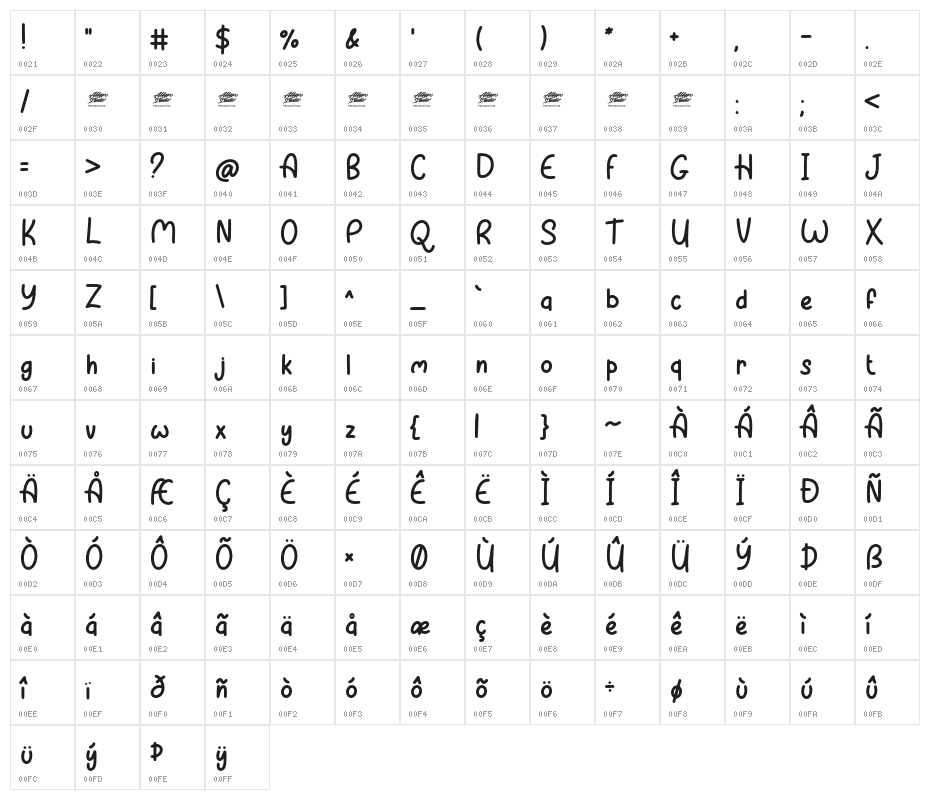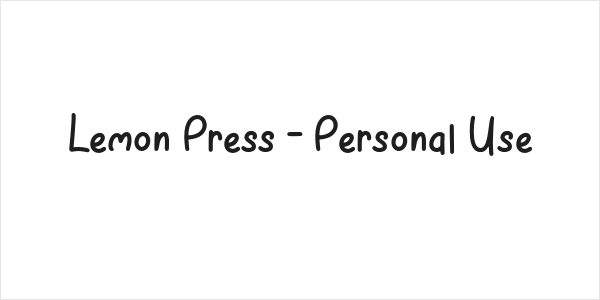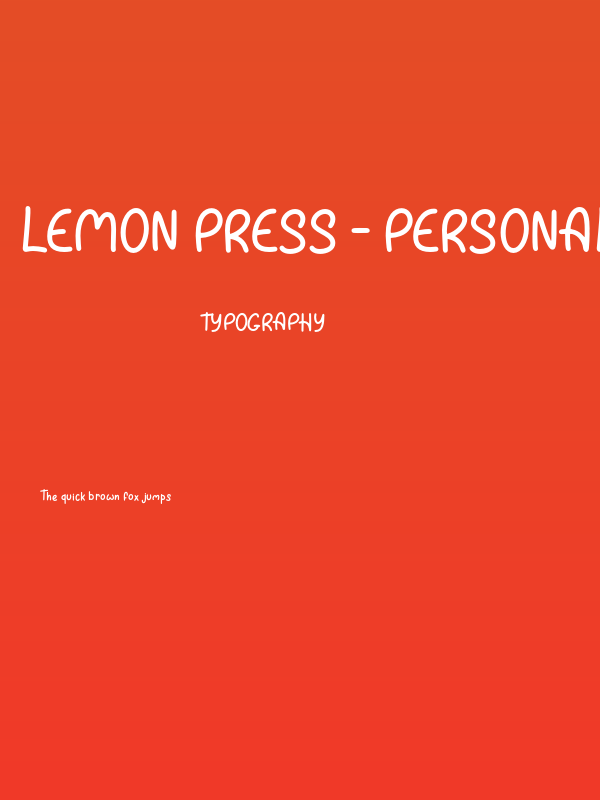
Lemon Press - Personal Use Font
Lemon Press - Personal Use Description
This playful and rounded font features a handwritten style with a casual and friendly appearance. The letters are bold and slightly irregular, giving them a whimsical and approachable feel. The uppercase and lowercase characters maintain a consistent flow, with smooth curves and a uniform stroke width. The numerals and special characters complement the alphabet with similar rounded edges and a cohesive design. This font is ideal for projects that require a personal touch or a fun, informal vibe.
| Use Case | Logos, Headlines, Informal Text |
| Proposed Projects | Great for greeting cards, children's books, playful branding, and social media graphics. |